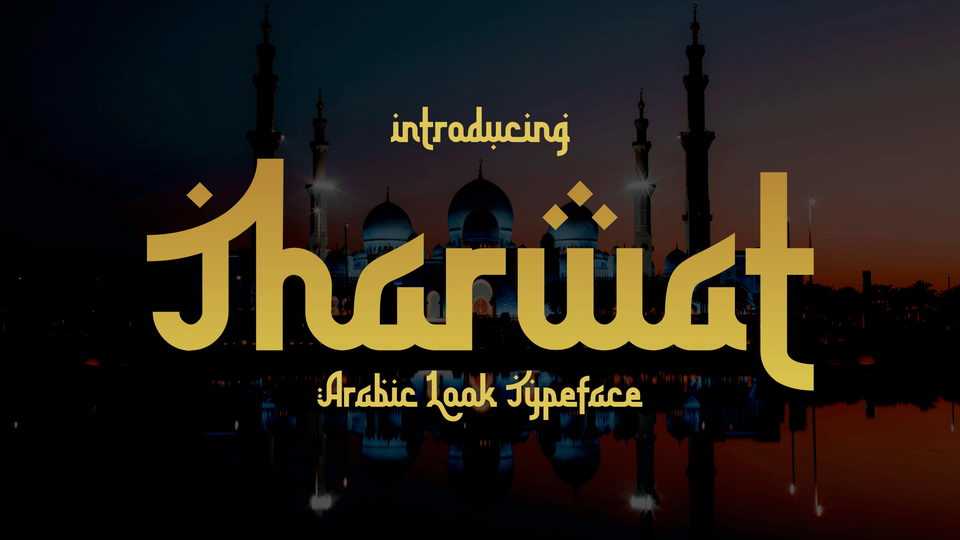
Download Tharwat font, a display typeface that took the ethnic look of arabic symbol and embrace it with solidity of sans-serif font. Tharwat has good readability, while keeping it’s middle east vibe.